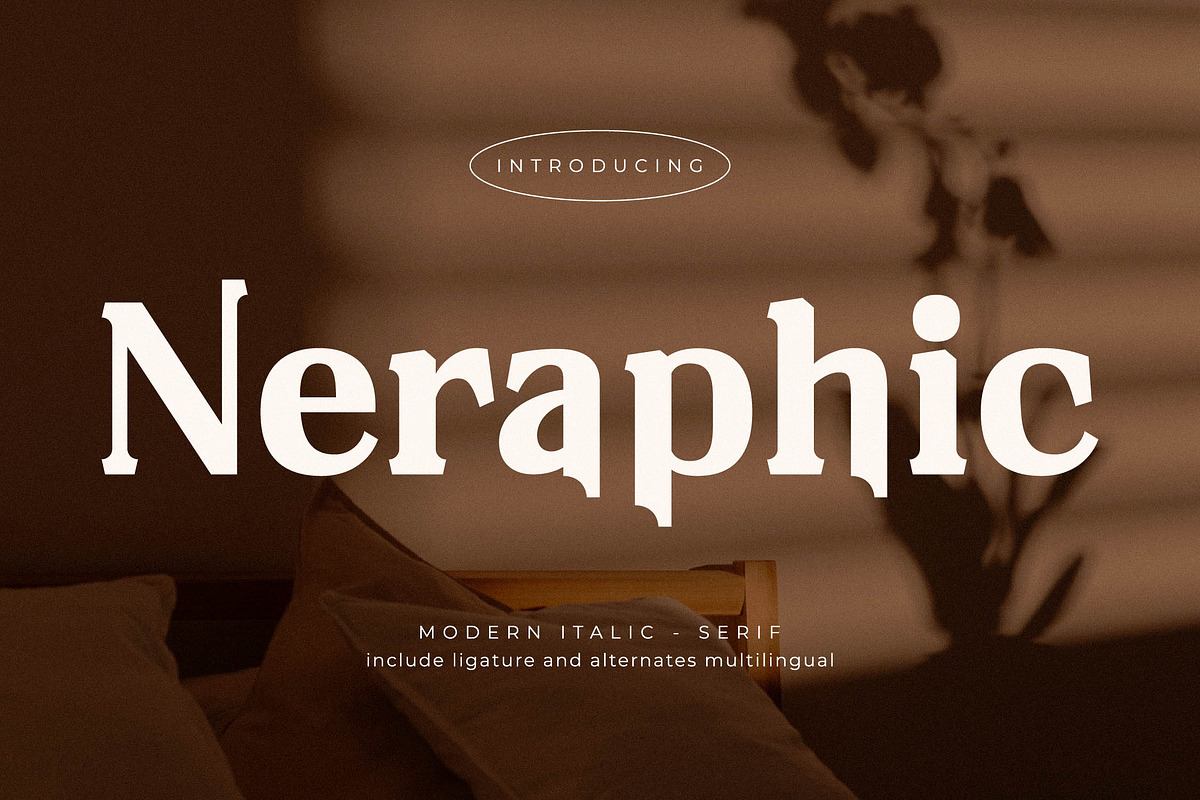
Neraphic A Modern Serif Font Free Download
Neraphic A Modern Serif Font Free Download is a sleek and contemporary serif typeface that combines traditional elegance with modern sophistication. Its clean lines and geometric serifs make it perfect for upscale branding, editorial design, web layouts, product packaging, and more.
With its high-contrast strokes and refined proportions, Neraphic provides excellent readability while adding a touch of class to any project. The font includes uppercase and lowercase letters, punctuation, multilingual support, and works seamlessly across both Mac and Windows systems.